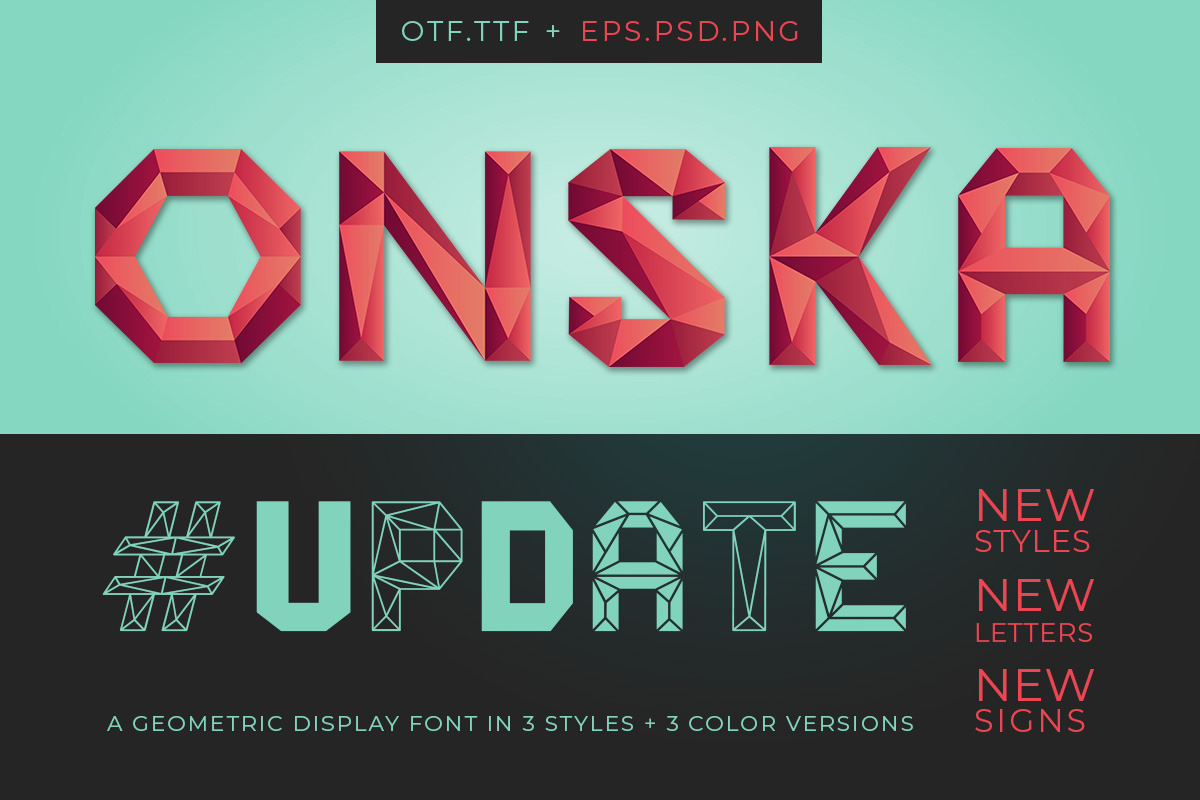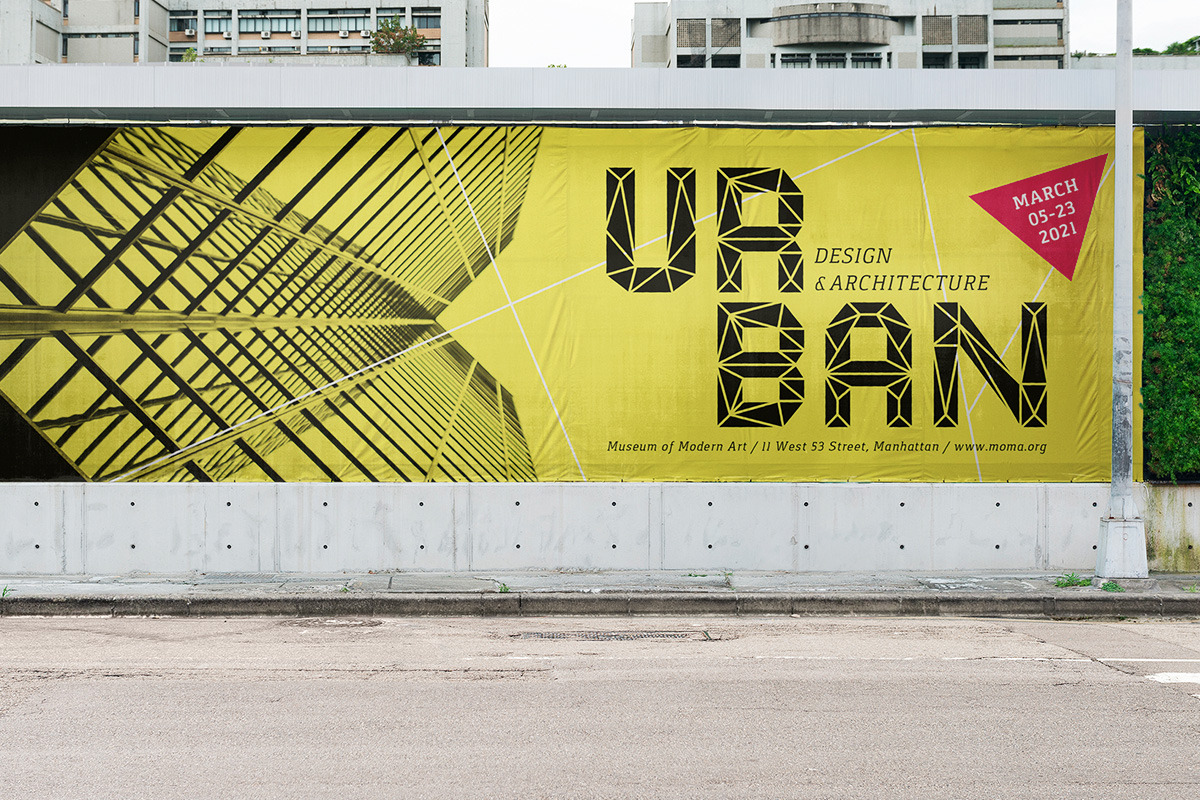
Onska - A Polygonal Display Font
ONSKA is a polygonal display font, first released in 2015 as vector letters with one bonus font (outline). In 2020 it got an extensive make over with two new font styles and a bunch of new letters and signs. The colored vector letters are, of course, still part of this set and were also extended with the new characters. ONSKA suits best for headlines and other big type. Also single letters can be a nice decorative element. Be creative!
- Onska Font – in three different styles: Onska Outline, Onska Solid and Onska Negative, both as OTF and TTF version.
- Onska colored – pre-colored letters, numbers and signs as vector shapes collected in one EPS file (Illustrator CS3) and as high-res pixel shapes (ca. 3000 x 3000 px) in one PSD file or as single PNG files with transparent background. The letters are available in green, grey and red, but can be changed to any color you like.